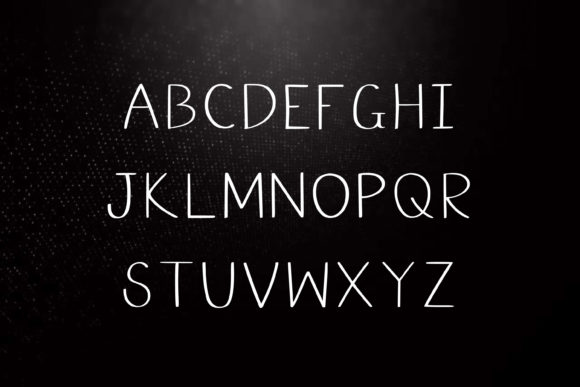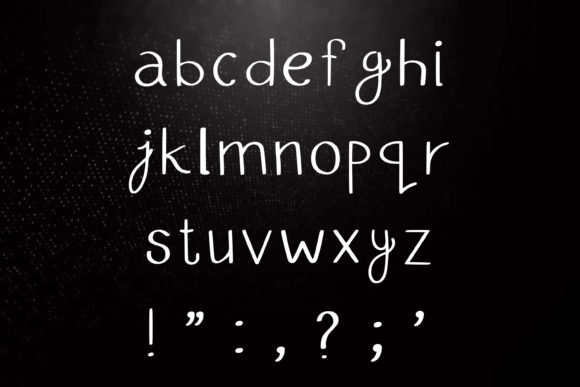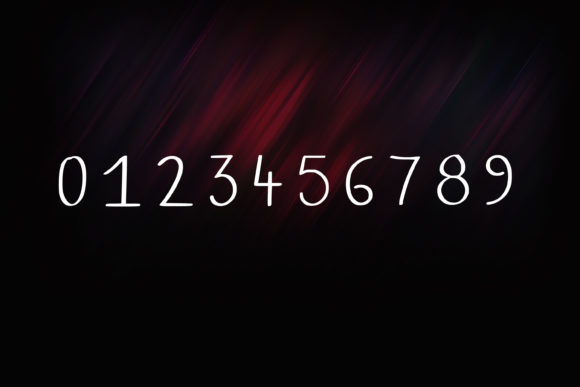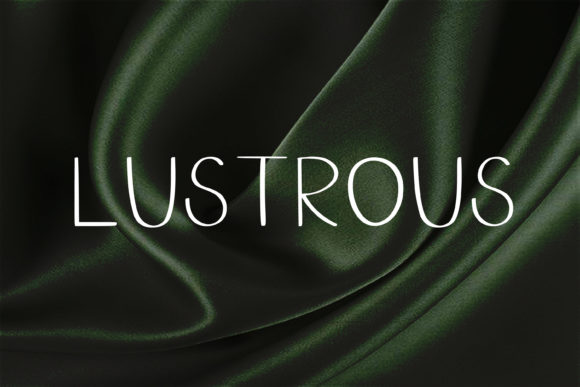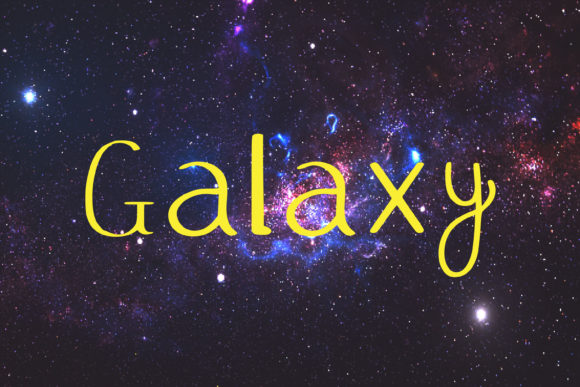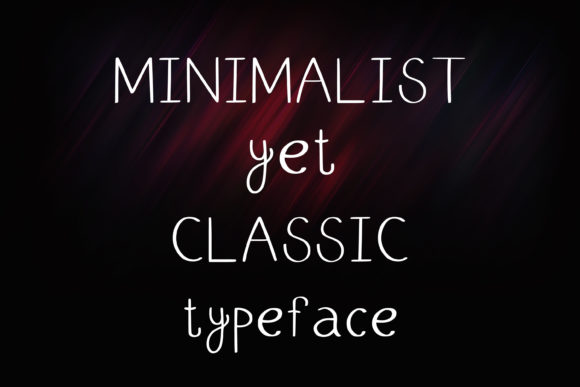
Introduction to Pannache Font
Have you ever stared at a blank canvas, trying to decide on the perfect font to bring your creative vision to life? For designers, this moment of hesitation is all too familiar. But what if you could have a reliable design resource at your fingertips? Enter the Pannache Font, a stunning sans serif font that exudes elegance and sophistication.
With its simple yet stylish design, the Pannache Font is the perfect addition to any creative project. Whether you’re working on branding, logos, packaging, or card-making, this high-quality font is sure to make a lasting impression. And the best part? It’s available for free download, making it an accessible design resource for designers of all levels.
Key Features of Pannache Font
- High-quality design with a unique, elegant style suitable for creative projects.
- Perfect for use in logos, branding materials, and other creative projects requiring a touch of sophistication.
Honest Review: Pannache Font
As a designer, I’m always on the lookout for high quality design resources to elevate my creative projects. Recently, I stumbled upon the Pannache Font, and I must say, it’s been a game-changer for me.
What works well: ✨ The Pannache Font is incredibly versatile and comes in a variety of weights, making it perfect for everything from titles to body text. The transparent background option is also a huge plus, allowing for seamless integration with any design. Plus, it’s free to download, which is always a bonus!
- High quality font with a wide range of weights
- Transparent background option for easy integration
However, I did encounter some limitations: ⚠️ The font can be a bit overused if not used thoughtfully, and some of the weights may not be as distinct from one another. But overall, these are minor complaints in an otherwise excellent font.
Overall impression: I’m thoroughly impressed with the Pannache Font, and I would highly recommend it to anyone looking for a high quality, versatile font for their creative project. It’s a must-have in any designer’s toolkit!
Use the Pannache Font with a transparent background to create a stunning visual effect. Experiment with different font sizes and colors to create a unique design. The Pannache Font is a versatile design resource that can be used in a variety of creative projects.
The Pannache Font is commonly used in wedding invitations, business cards, and other marketing materials. It’s also used in creative projects such as digital art and graphic design. The Pannache Font is a high-quality design resource that can add a touch of sophistication and elegance to any design project.
Can I use the Pannache Font for web design?
Yes, the Pannache Font is perfect for web design. Its high-quality design and transparent background make it ideal for creating visually appealing and engaging web content. You can use it for headings, body text, or any other element of your website, and it will look great on any device, from desktop computers to mobile phones and tablets.